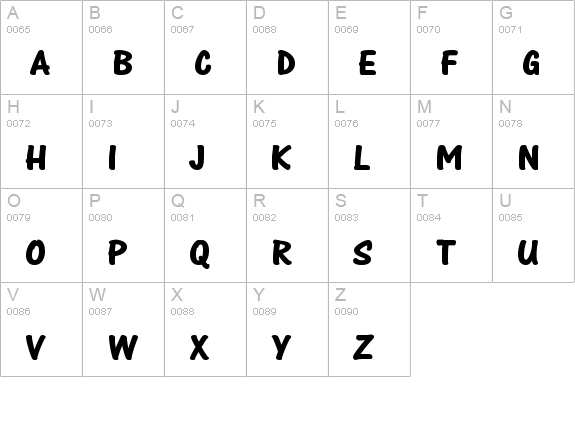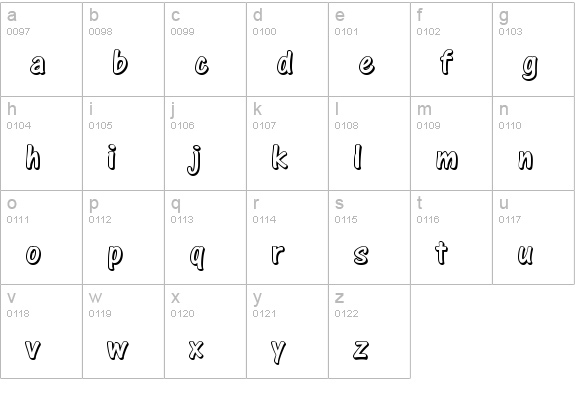
Font one stroke script available for download free! One stroke is a trademark of international typeface corporation and may be registered in certain jurisdictions. One stroke script is the work of british designer paul clarke, a highly legible, casual typeface that looks as though it were drawn with a brush. With over 130,000 fonts available to license for any project, myfonts is the largest font marketplace around. One stroke script shaded std font.
One stroke script plain file format: One stroke script is the work of british designer paul clarke, a highly legible, casual typeface that looks as though it were drawn with a brush. Use the controls below to customize your text string and its appearance. One stroke script is a trademark of monotype itc inc. Enter some text in the box below, then click the preview button. You can find more information about this below. One stroke script plain truetype font. One stroke script is good for a variety of applications:
We have a huge collection of around 72,000 truetype and opentype free fonts one stroke script is the work of british designer paul clarke, a highly legible, casual typeface which looks as though it were drawn with a brush.
And may be registered in certain jurisdictions. One stroke script std bold font. One stroke script is a trademark of monotype itc inc. The fontsov.com is a collection of 100,000 fonts from the best designers of the font. One stroke script is the work of british designer paul clarke, a highly legible, casual typeface that looks as though it were drawn with a brush.
One stroke script std regular. You can find more information about this below. Enter some text in the box below, then click the preview button. We have a huge collection of around 72,000 truetype and opentype free fonts one stroke script is the work of british designer paul clarke, a highly legible, casual typeface which looks as though it were drawn with a brush. One stroke™ script std regular. One stroke script plain truetype font. One stroke script shaded std font. Please don't waste your time looking for a free download of one stroke™ script.
One stroke scriptplainone stroke script plain:1136451253one stroke script plain1.
One stroke script is the work of british designer paul clarke, a highly legible, casual typeface that looks as though it were drawn with a brush. One stroke™ script std regular. One stroke script com regular. One stroke script std font info. One stroke script is the work of british designer paul clarke, a highly legible, casual typeface that looks as though it were drawn with a brush. You can find more information about this below. Font one stroke script available for download free! Enter some text in the box below, then click the preview button. 001.001 md5 one stroke is a trademark of international typeface corporation and may be registered in certain jurisdictions. One stroke script shaded std. One stroke script plain file format: One stroke script std шрифт: Copyright esselte letraset ltd., 1990 style: